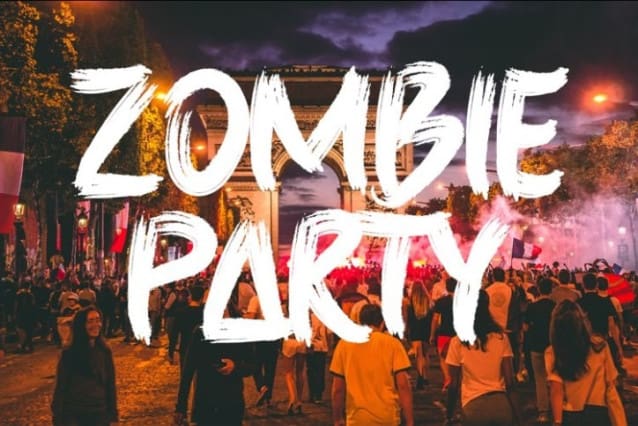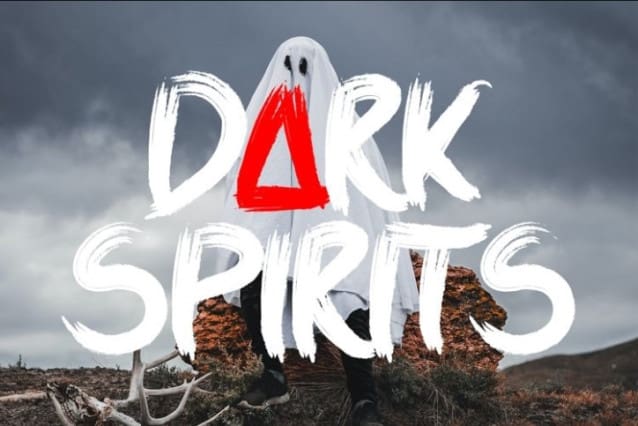
Scary Night Font
Scary Night Font is a creepy, handwritten brush font, suitable for your halloween moment!  So don’t wait, make it your font of choice today, and take your designs to the next level!